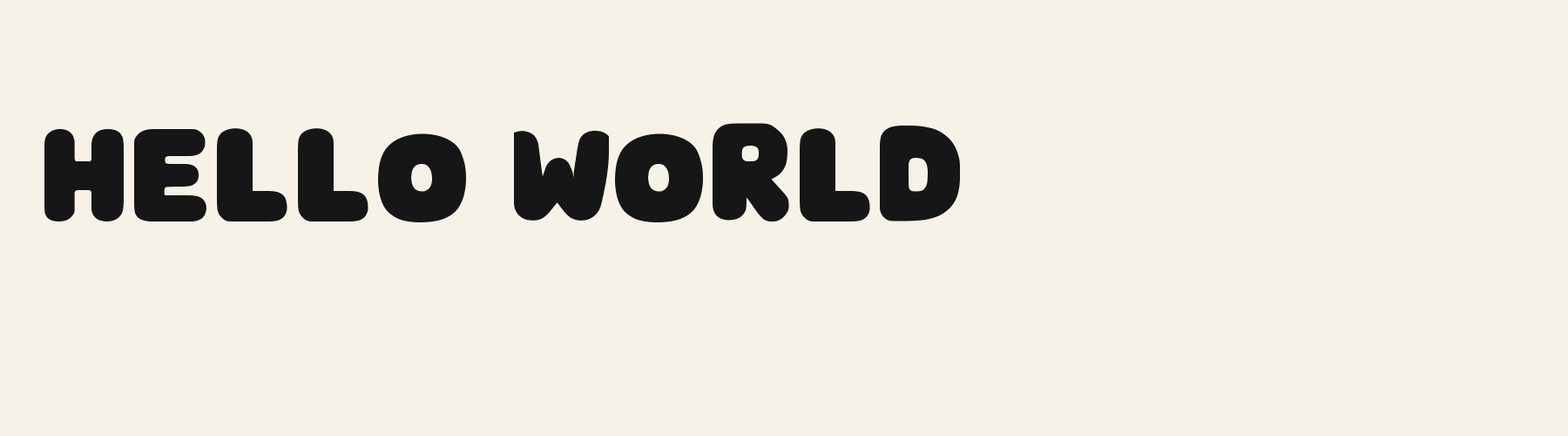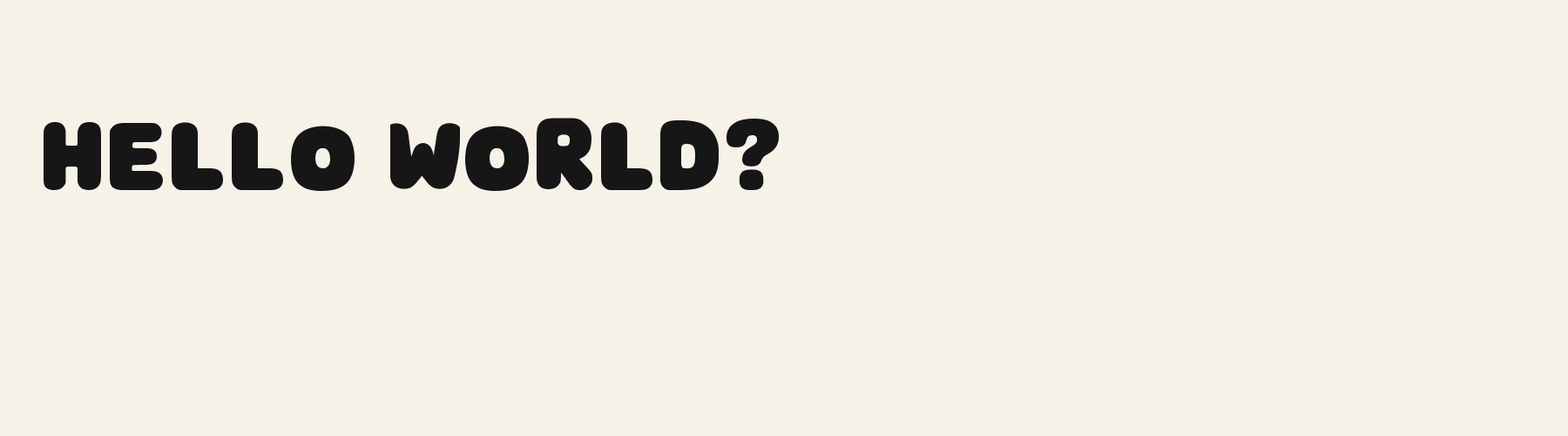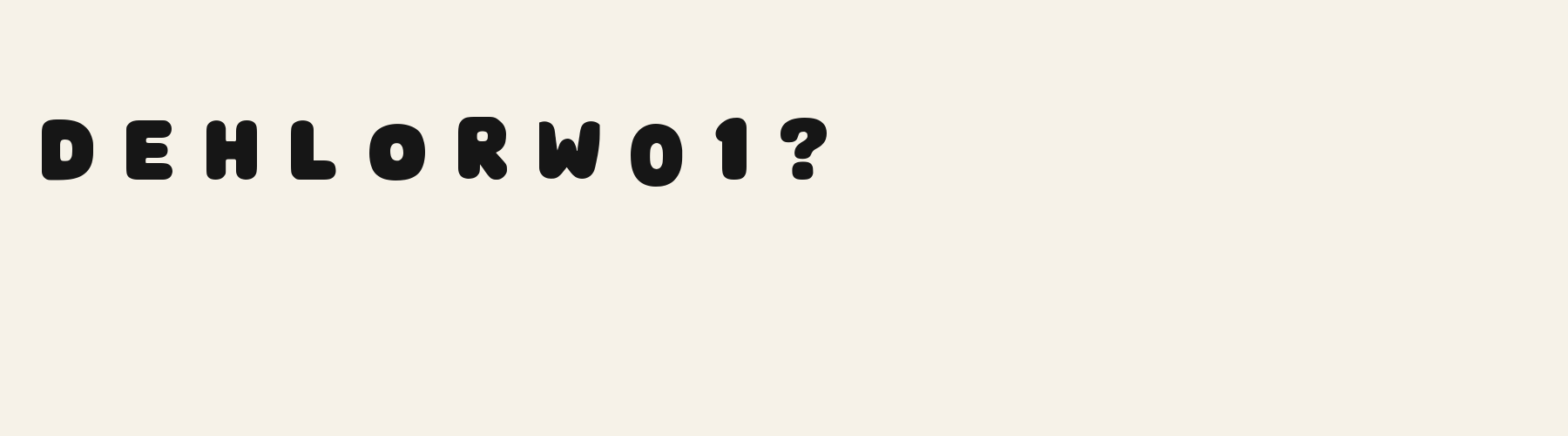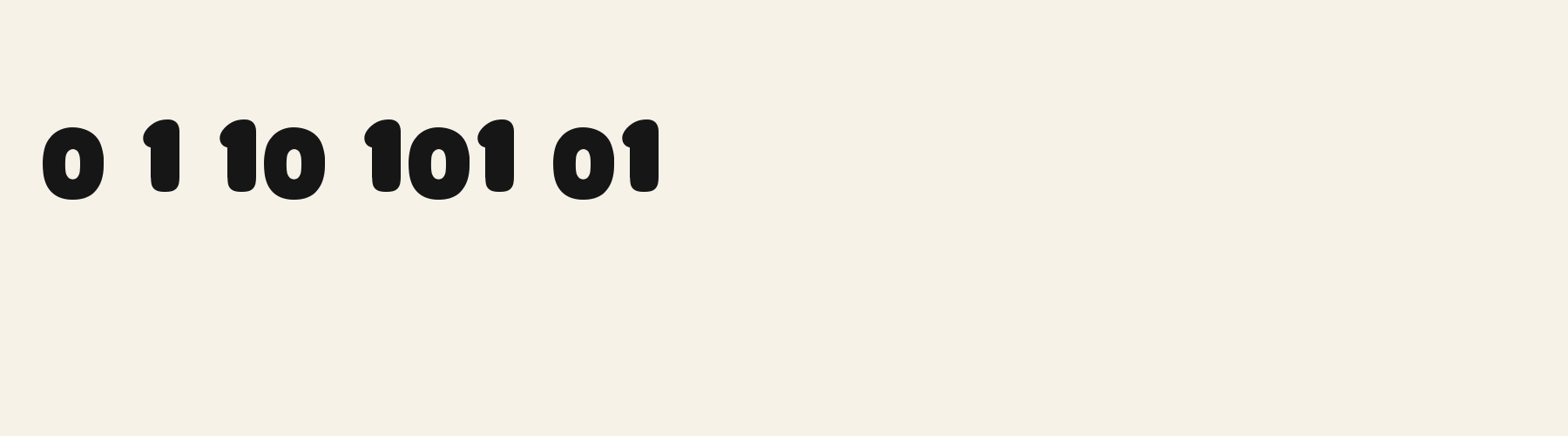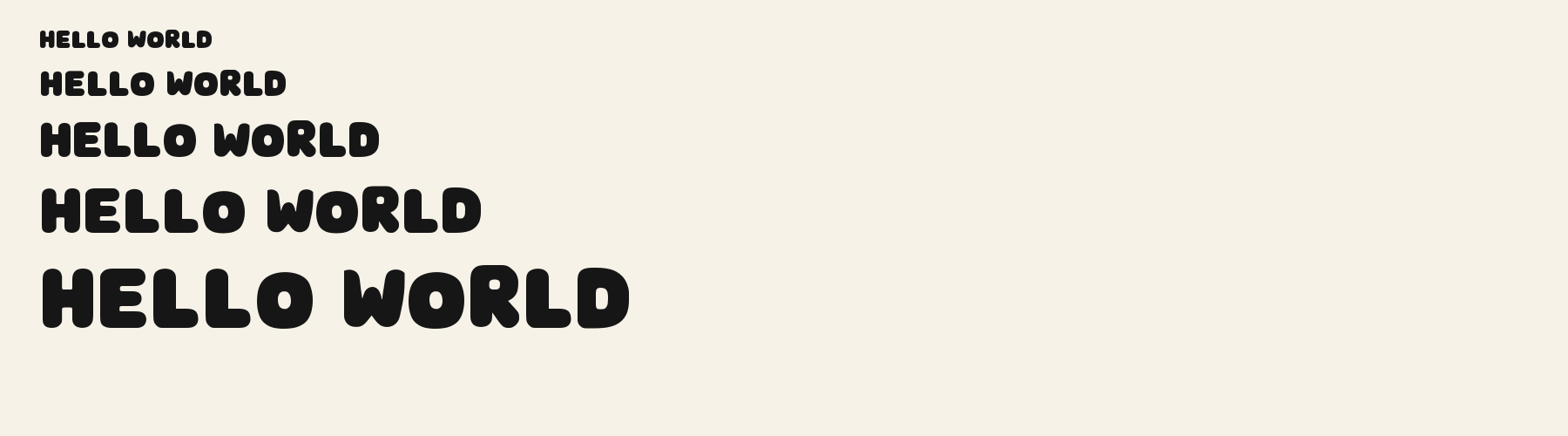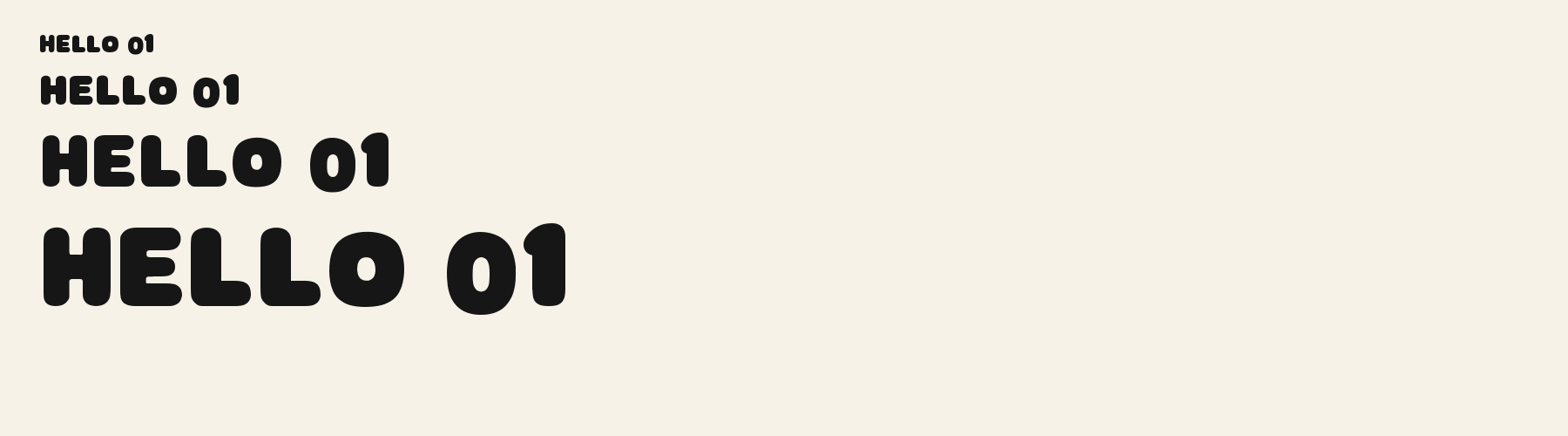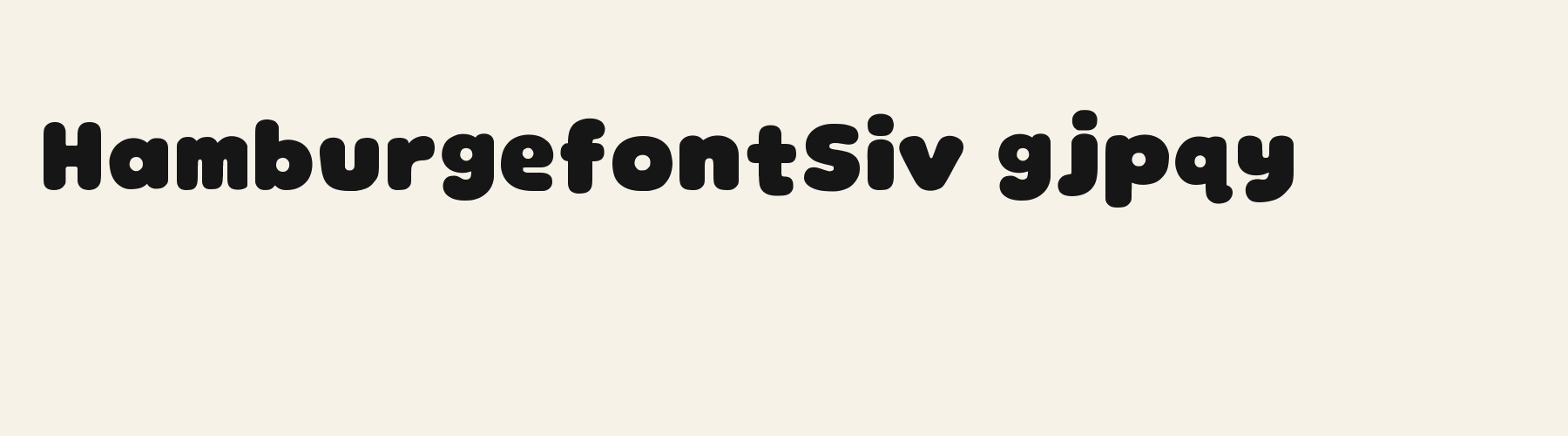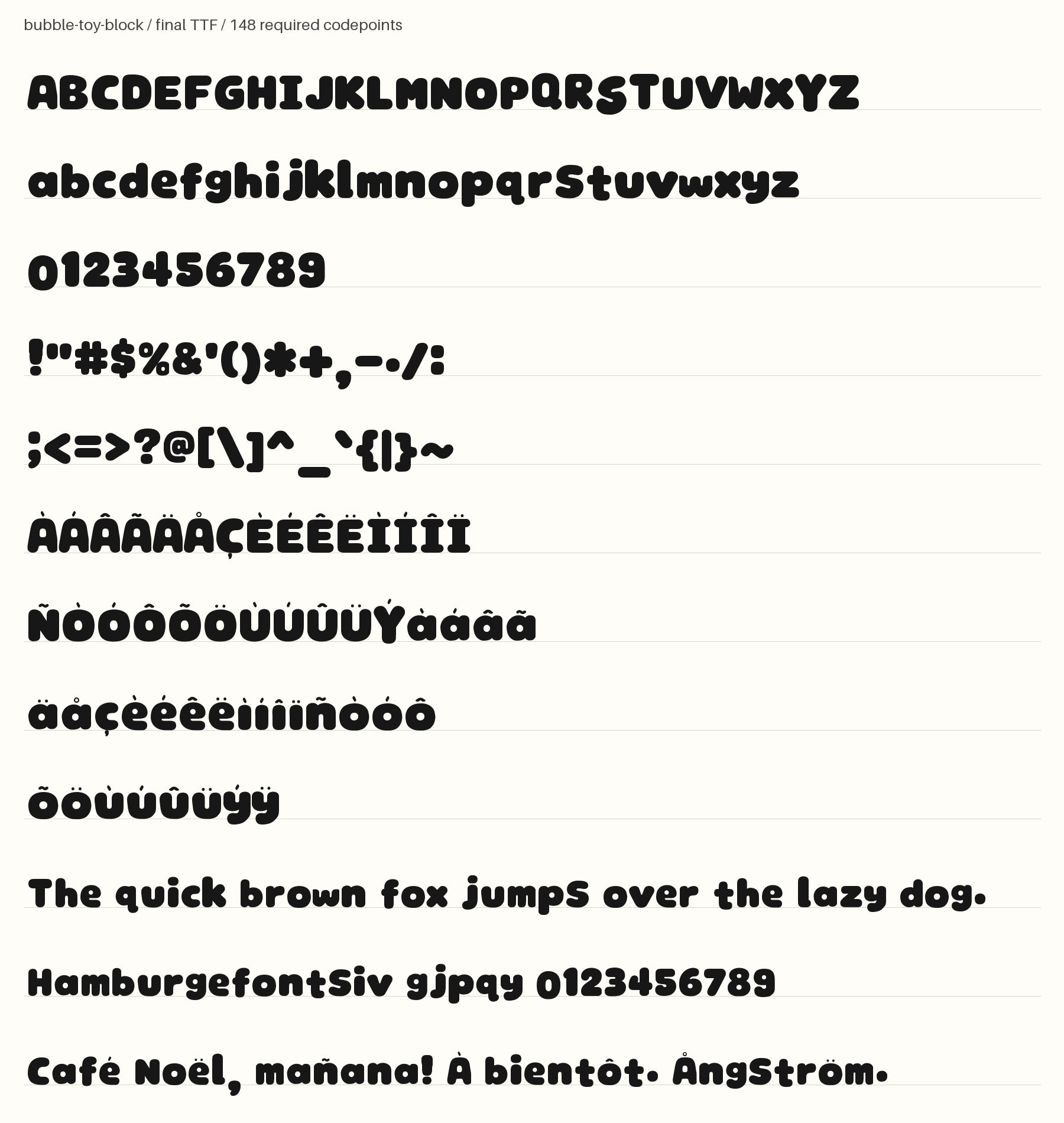
Cute Storybook Round
DisplayCute Storybook Round
Bubble Toy Block is a toy packaging, classroom posters and children’s birthday headings. heavy low-contrast strokes, broad shoulders and large simple counters. Best for toy packaging, classroom posters and children’s birthday headings.
Includes all 95 printable Basic Latin characters and 148 glyphs in total.
Verified language coverage: English (Basic Latin)